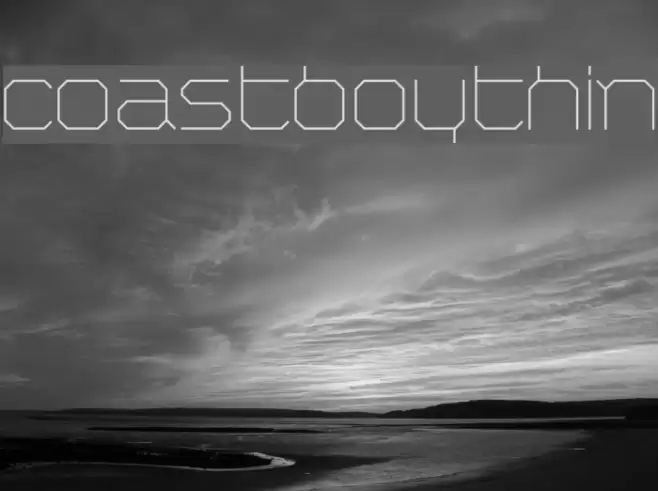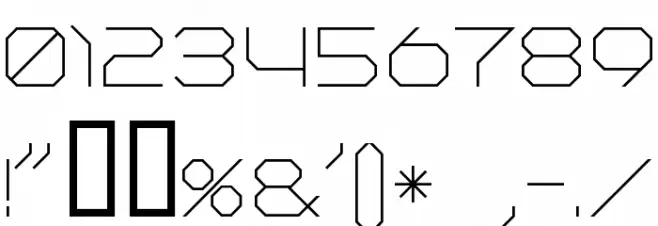
Coastboythin Font
Coastboythin Description
This font features a geometric, angular design with a modern and futuristic aesthetic. Each character is constructed with straight lines and sharp angles, giving it a distinctive, almost digital appearance. The uniformity in line thickness across all characters contributes to a cohesive look, while the angular forms add a unique edge. The uppercase and lowercase letters maintain a consistent style, with the lowercase mirroring the uppercase in form but reduced in size. Numbers and special characters follow the same design principles, ensuring a harmonious overall appearance. This font's precise and clean lines make it suitable for contemporary design projects.
A geometric, angular font with a modern, digital aesthetic from Uncategorized fonts.
- Proposed Projects: Ideal for tech-related branding, digital interfaces, futuristic posters, and modern graphic design projects.
- Overall Style: Futuristic, Geometric
- Use Case: Logos, Headlines, Digital Interfaces